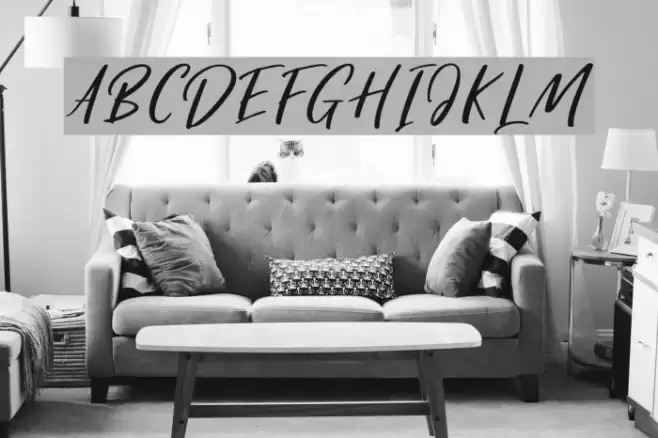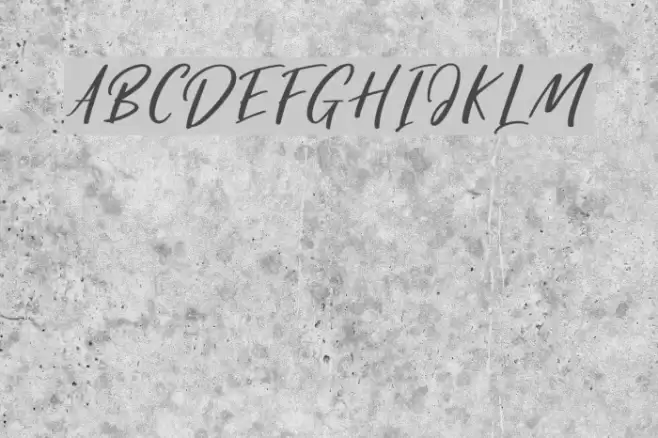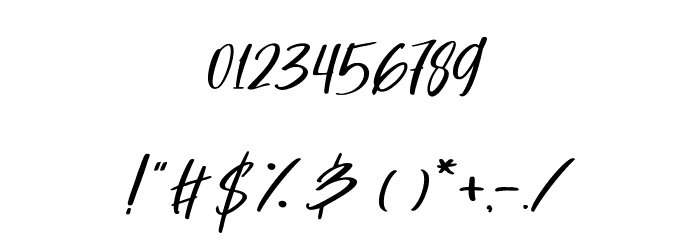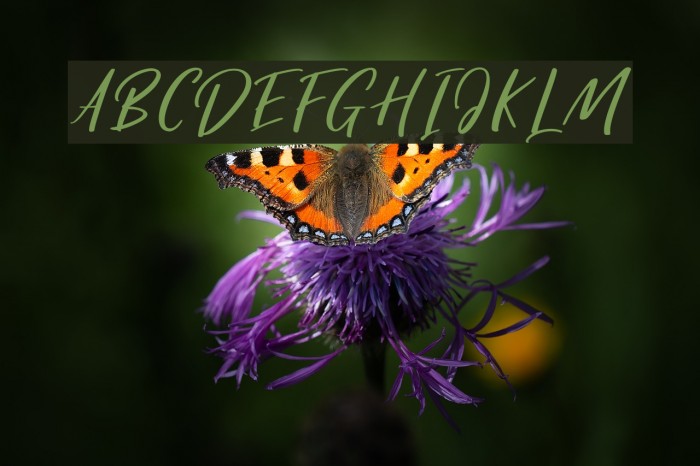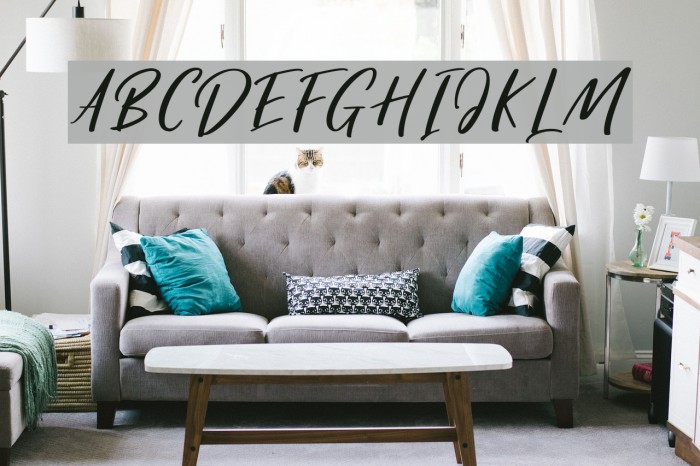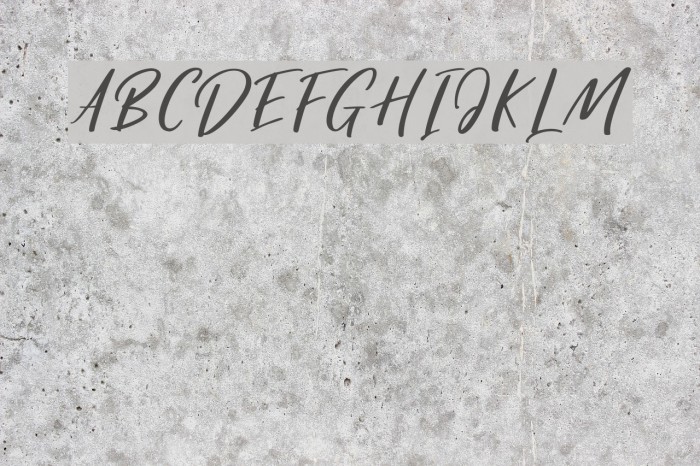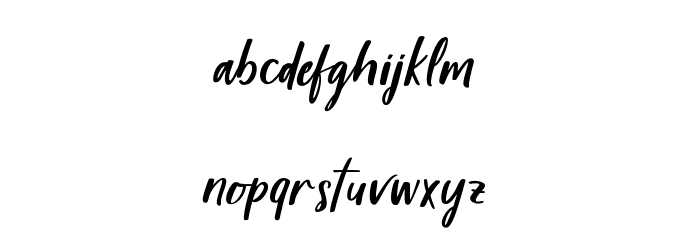
Harvest Barn DEMO Regular Font
Harvest Barn DEMO Regular Description
This font features a dynamic and flowing script style, characterized by its elegant and slightly informal appearance. The uppercase letters exhibit a graceful, sweeping motion, while the lowercase letters maintain a consistent fluidity that enhances readability. The numerals are well-integrated, matching the overall cursive aesthetic. Special characters are designed with the same attention to detail, ensuring a cohesive look across all glyphs. The font's strokes vary in thickness, adding a touch of sophistication and visual interest. This typeface is ideal for projects that require a personal and artistic touch.
A dynamic and flowing script font with elegant, sweeping strokes from Uncategorized fonts.
- Proposed Projects: Ideal for wedding invitations, greeting cards, branding, and artistic projects.
- Use Case: Logos, Headlines, Invitations